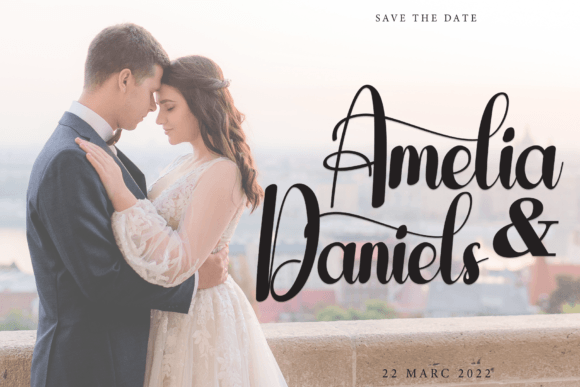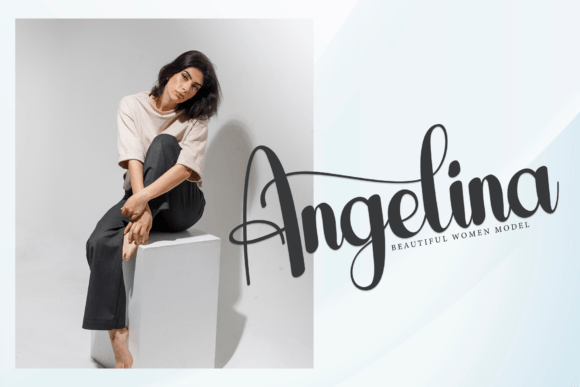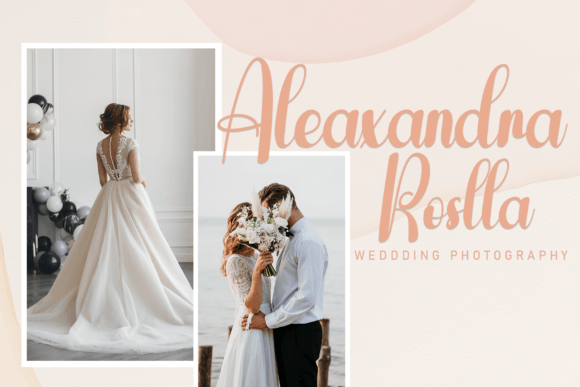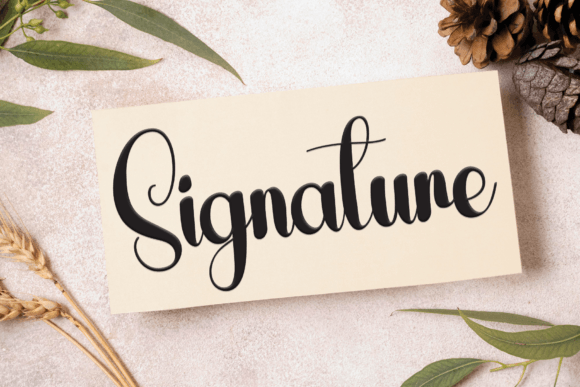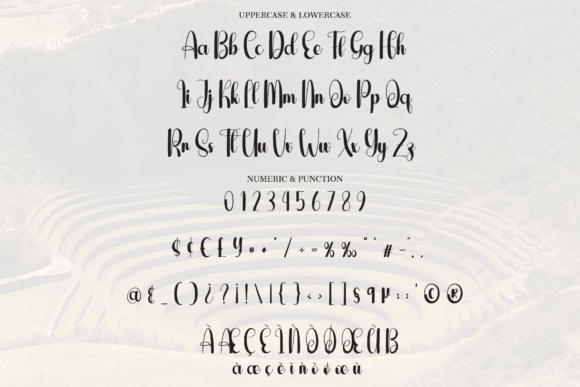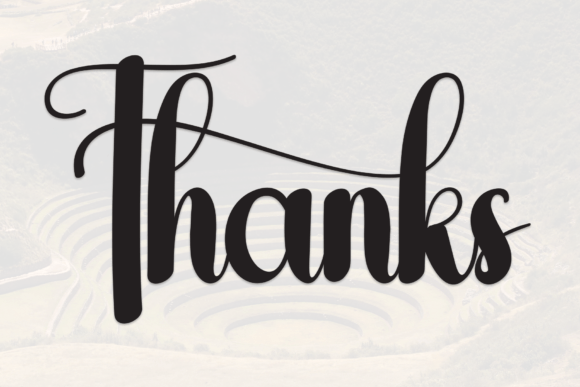
Introducing Doingline Font: The Sweet and Friendly Handwritten Font for Your Creative Projects
Are you a designer or crafter looking for a font that can add a touch of warmth and personality to your projects? Look no further than Doingline Font! This sweet and friendly handwritten font is perfect for creating wedding invitations, cards, and other designs that require a fun and approachable vibe.
What Makes Doingline Font Special?
Doingline Font is a fresh and neat handwritten font that is designed to bring a sense of joy and playfulness to your designs. Its sweet and friendly style makes it ideal for a variety of creative projects, from wedding invitations and birthday cards to social media graphics and blog posts.
One of the standout features of Doingline Font is its versatility. It can be used for both personal and commercial projects, and its flexibility makes it easy to pair with other fonts and design elements. Whether you’re creating a whimsical and romantic wedding invitation or a fun and colorful social media graphic, Doingline Font is the perfect choice.
Characteristics of Doingline Font
So, what makes Doingline Font so unique? Here are a few of its key characteristics:
- Sweet and friendly style: Doingline Font has a warm and approachable style that is perfect for creating designs that require a personal touch.
- Fresh and neat: This font is clean and easy to read, making it perfect for body text and headings.
- Handwritten feel: Doingline Font has a lovely handwritten feel that adds a touch of personality to your designs.
- Versatile: This font can be used for a wide range of creative projects, from wedding invitations and cards to social media graphics and blog posts.
Uses for Doingline Font
So, what can you use Doingline Font for? The possibilities are endless! Here are a few ideas to get you started:
- Wedding invitations: Doingline Font is perfect for creating beautiful and romantic wedding invitations that set the tone for your special day.
- Cards and stationery: This font is great for creating birthday cards, thank-you cards, and other stationery that requires a personal touch.
- Social media graphics: Doingline Font is perfect for creating fun and colorful social media graphics that showcase your personality and brand.
- Blog posts: This font can be used to add a touch of personality to your blog posts and make them more engaging and readable.
Tips for Using Doingline Font
Here are a few tips for using Doingline Font in your designs:
- Pair it with other fonts: Doingline Font pairs well with other fonts, so don’t be afraid to experiment and find the perfect combination for your design.
- Use it for headings and body text: This font is clean and easy to read, making it perfect for both headings and body text.
- Add a personal touch: Doingline Font is all about adding a personal touch to your designs, so don’t be afraid to get creative and add your own unique flair.
In conclusion, Doingline Font is a sweet and friendly handwritten font that is perfect for designers and crafters looking to add a touch of warmth and personality to their projects. Its versatility, fresh and neat style, and handwritten feel make it ideal for a wide range of creative projects, from wedding invitations and cards to social media graphics and blog posts. So why not give it a try and see how it can elevate your designs?
Whether you’re a seasoned designer or a crafty DIY enthusiast, Doingline Font is a great addition to your font collection. So go ahead, get creative, and have fun with it!